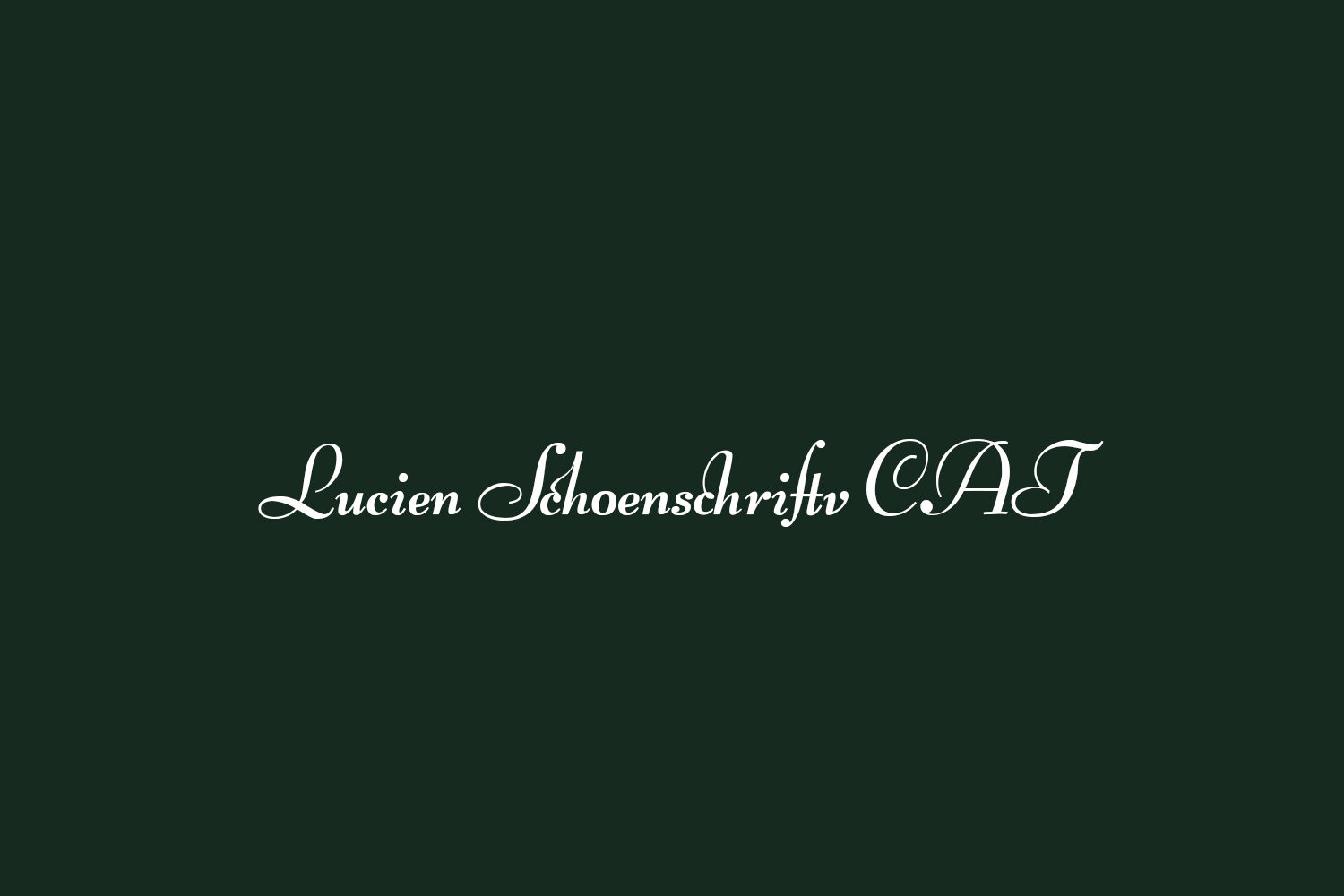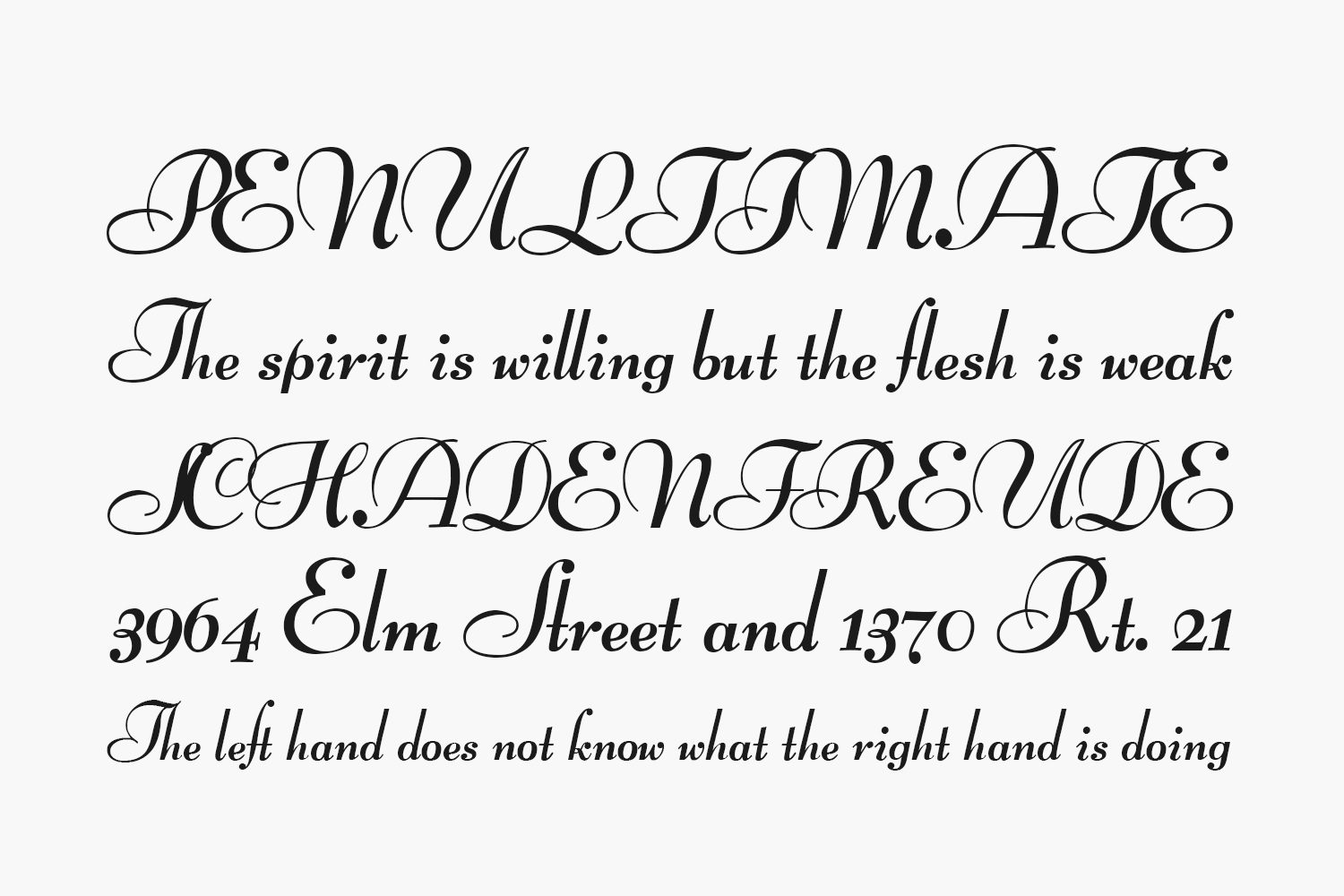
Here is another font once published by the Bauersche Gießerei foundry, a calligraphy font originally designed by Lucian Bernhard in 1928, here in the sturdy version and expanded with ligatures by me. This font is free for both personal and commercial purposes.